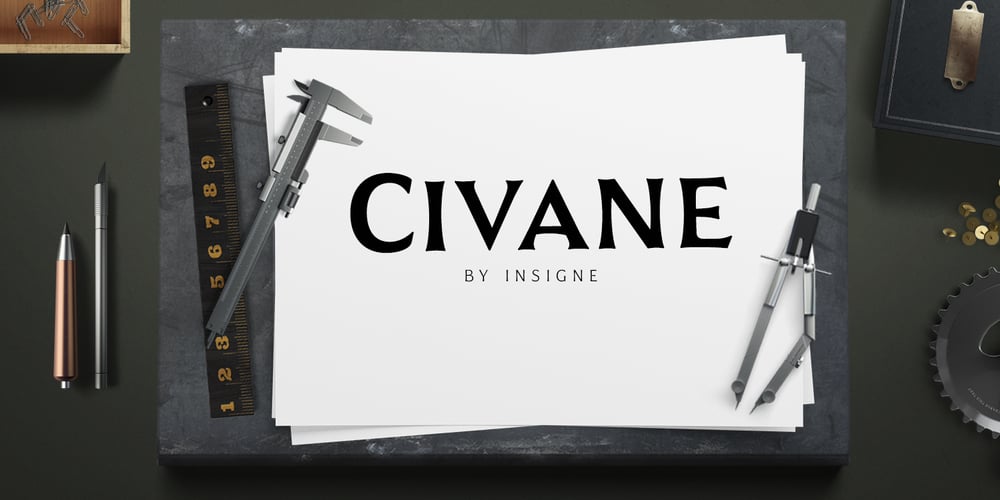
Civane Font Family was designed by Jeremy Dooley and published by insigne. Civane contains 48 styles and family package options. High atop the mountain of fonts, a new structure has been raised–one solid and strong against the challenges of time. Civane is a victorious conqueror among fonts, standing above the clutter and the mundane. Its firm structure joins effortlessly with graceful calligraphy in a new flowing, inscriptional typeface. Civane is inspired by monuments of great civilizations, whose lofty inscriptions remain chiseled into the very stones and columns of their structures. The font’s medium contrast with its flared stroke ends lead the reader to feel the solemn presence found in these great obelisks and shrines. Even Civane’s thinnest weight holds a quiet power over its audience. Still, its classic lines provide a beautiful flow between the strong letters, allowing the reader’s eye to move easily across the page. Civane supports OpenType features and comes with upright italics, alternates, ligatures, old-fashioned figures, titling and small caps. Preview all these features in the interactive PDF manual. The font family has 48 fonts, with three widths and eight weights. The font family also includes glyphs for 72 languages; over 550 glyphs per font stand ready for you to command throughout your design. Civane is built for advertising and display typesetting as well as title and small text, making it an excellent choice for websites as well as flyers and packaging. Use it for defining your brand or for creating designs that evoke academia, militaria, monuments, automobiles, signs, and so on. Its 48 well-designed fonts are well-equipped to help you leave your mark on history. Production assistance from Lucas Azevedo and ikern.